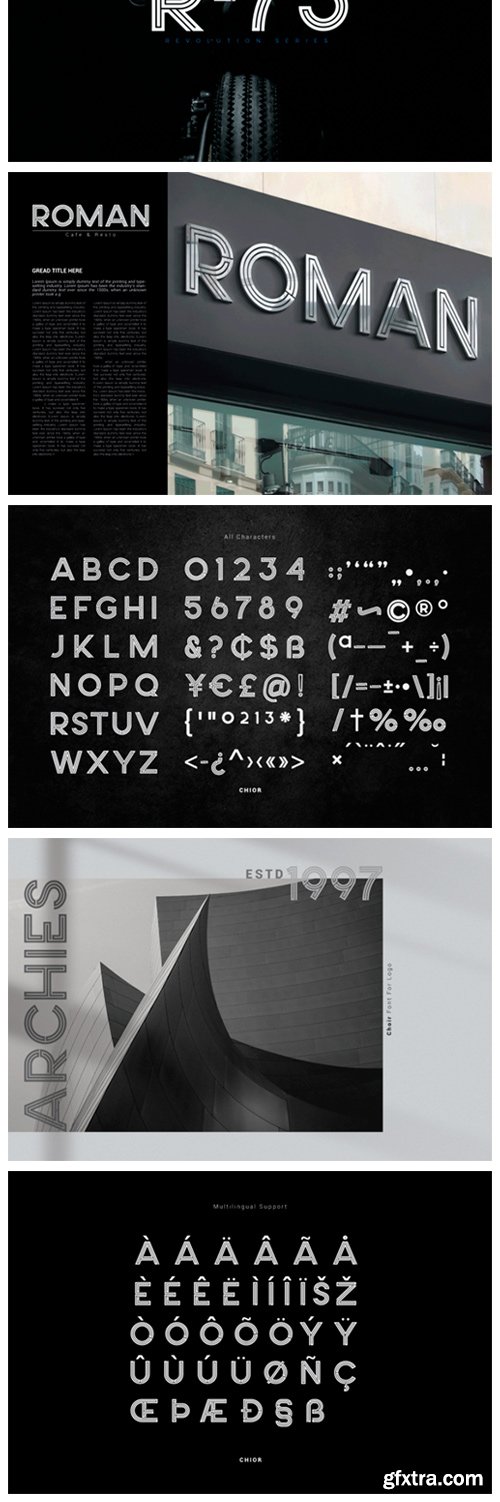
Choir Font
Choir is a modern and cool display font. This font is ideal for writing web designs, business cards, or pretty much anything else that requires a unique touch.